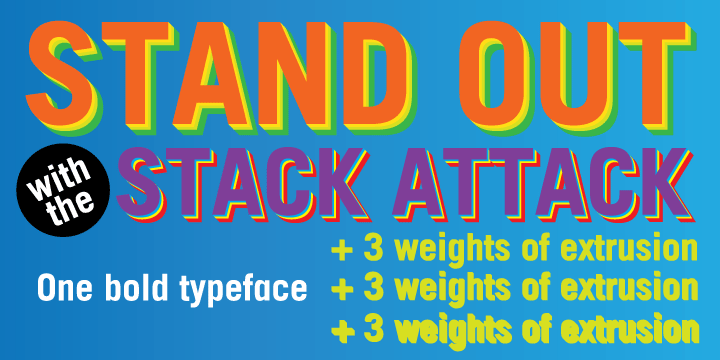
Stacker is a display gothic typeface with three weights of extruded typefaces that can be used to project the main typeface spatially.
Originally designed for Beautiful/Decay magazine, then picked up for Nokia’s 2006 Europe campaign, Stacker is a bold, lively, attention-grabbing display face.
The extruded faces can be used in a standalone manner, as they have been by electronic musicians such as YACHT and E*Rock.
Stacker Bold
Stacker Extruded1
Stacker Extruded2
Stacker Extruded3